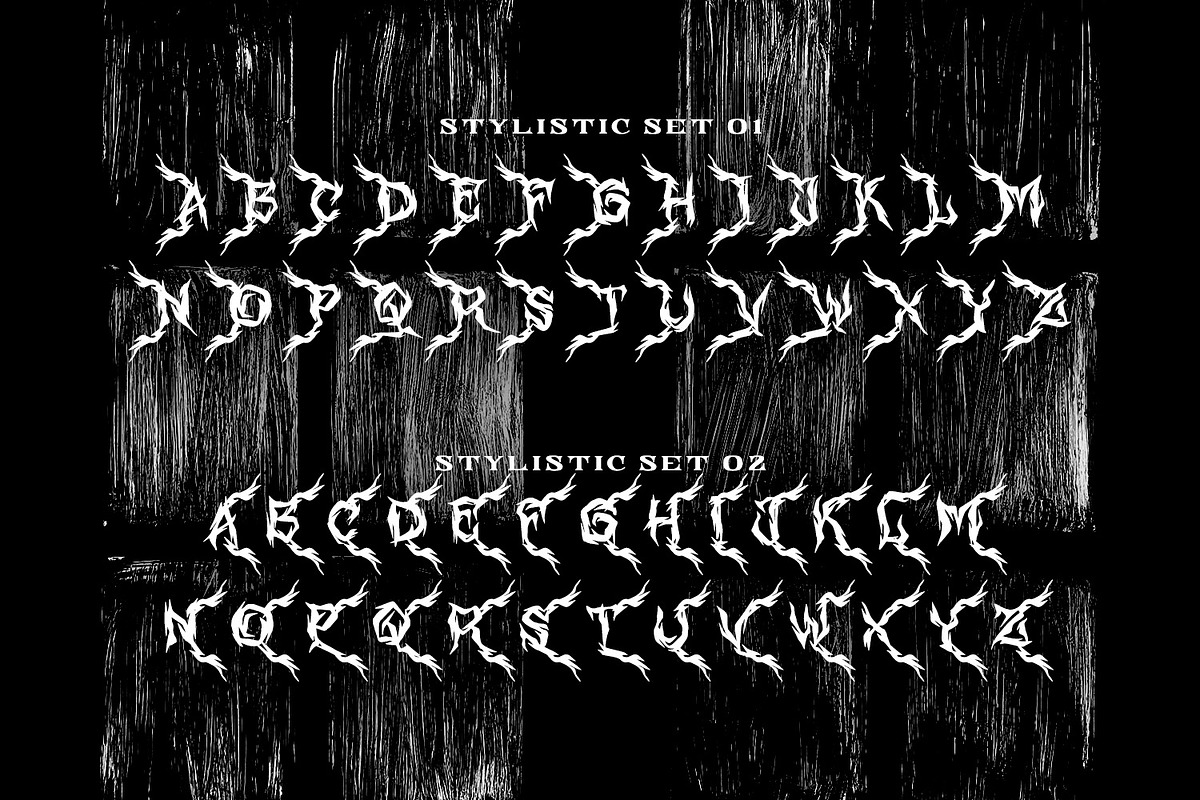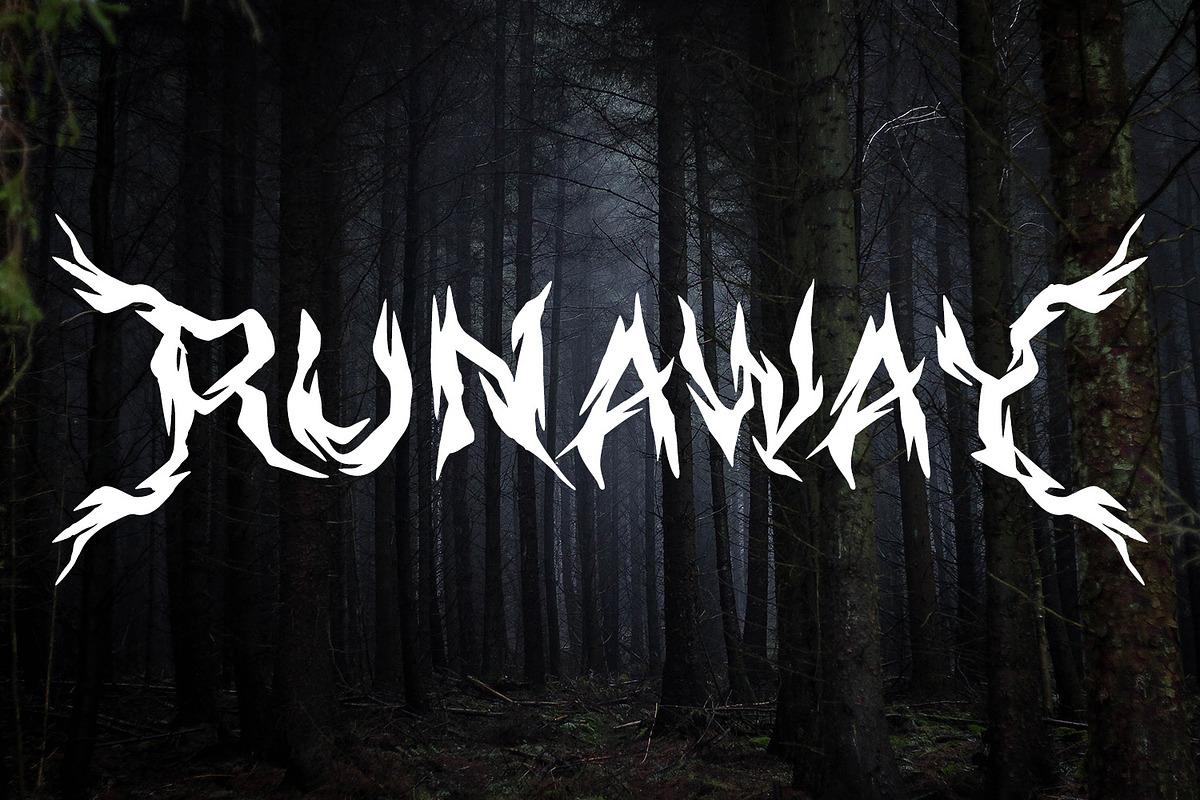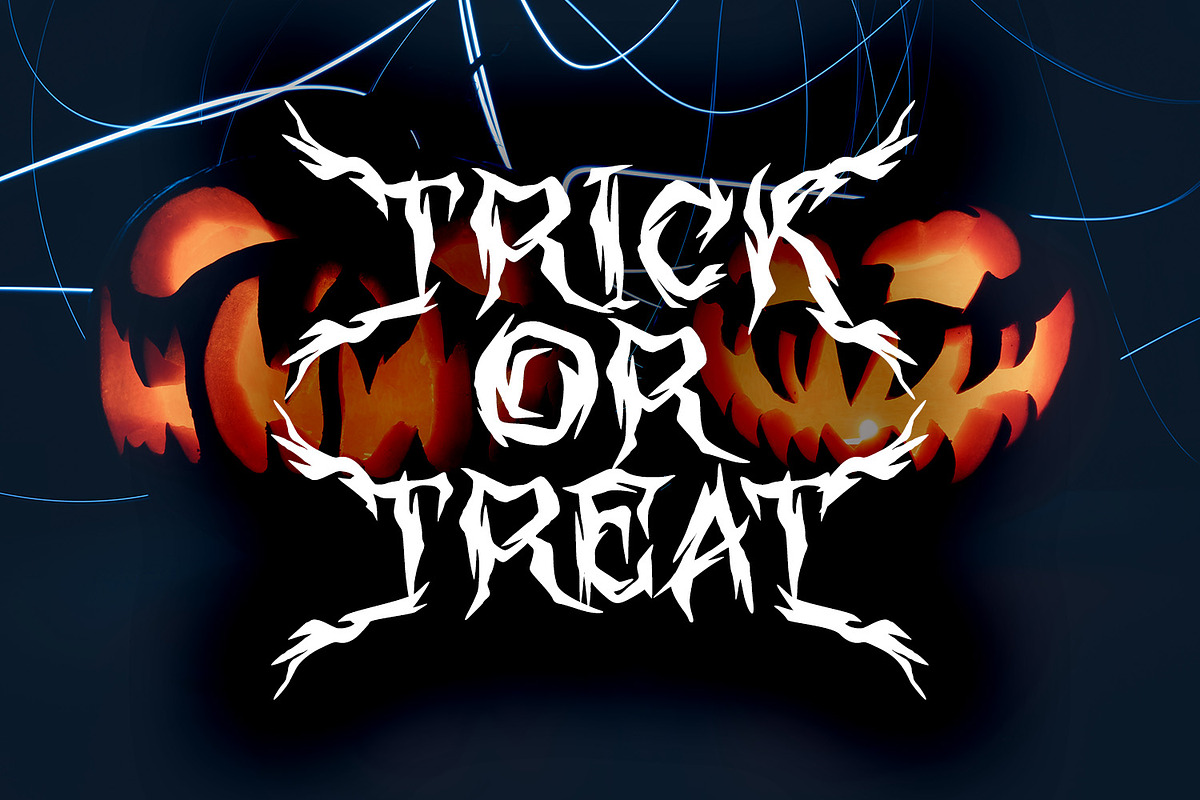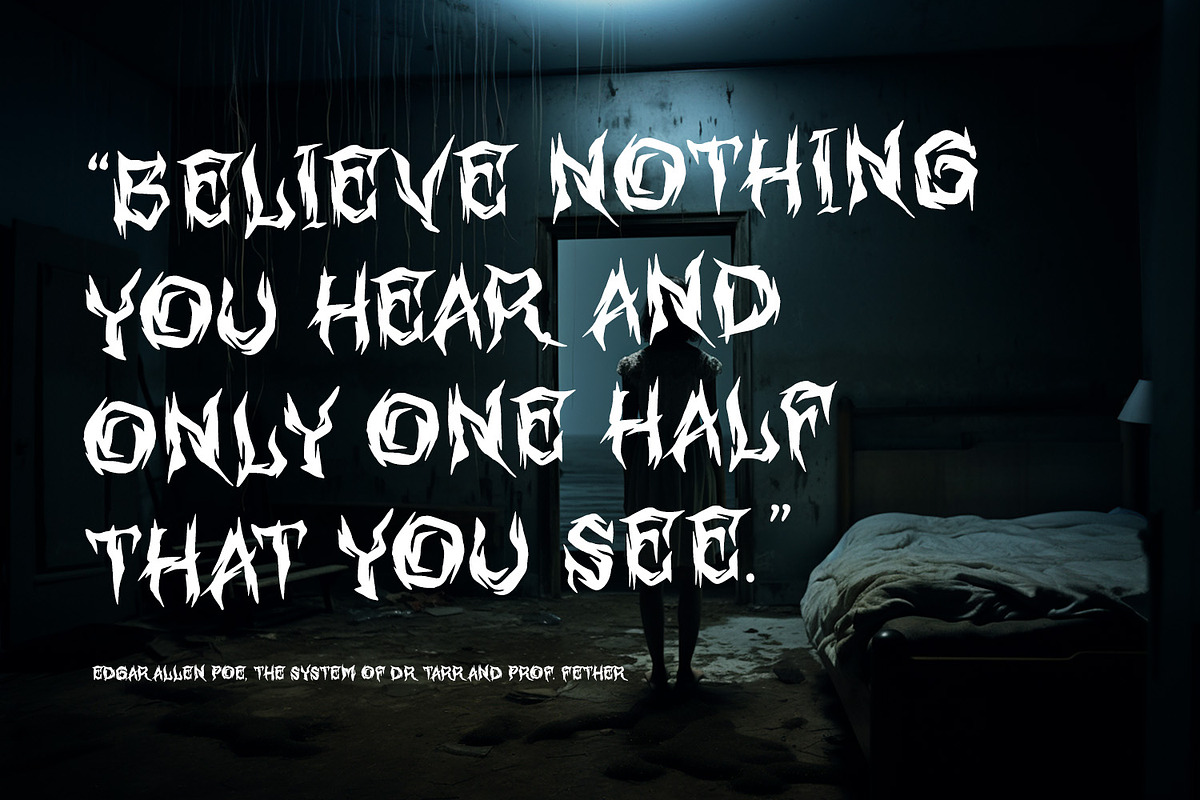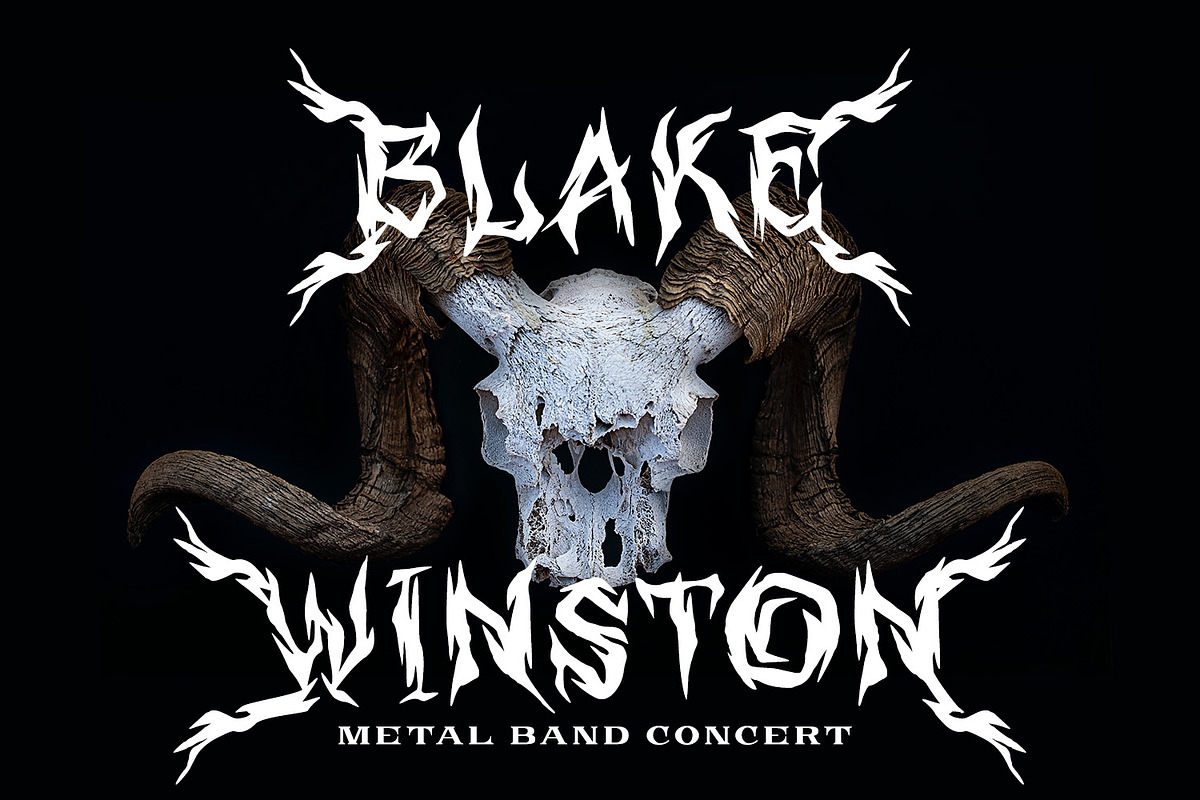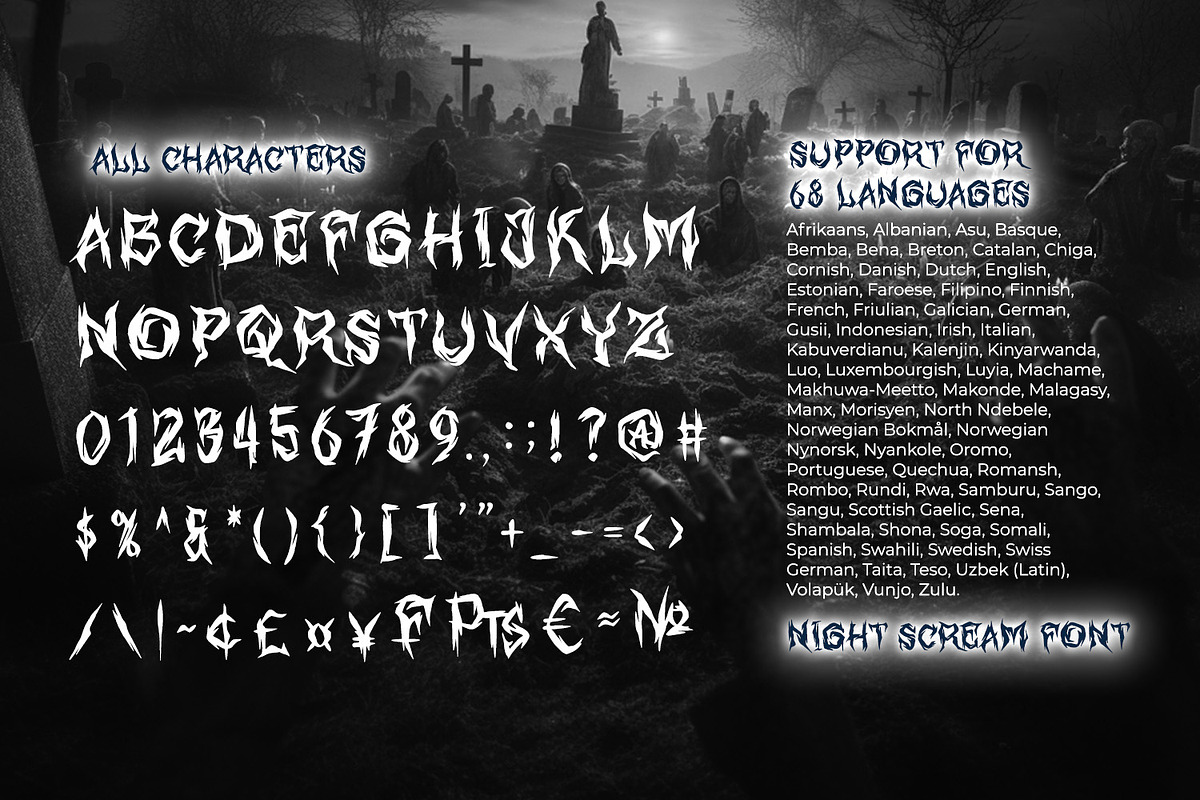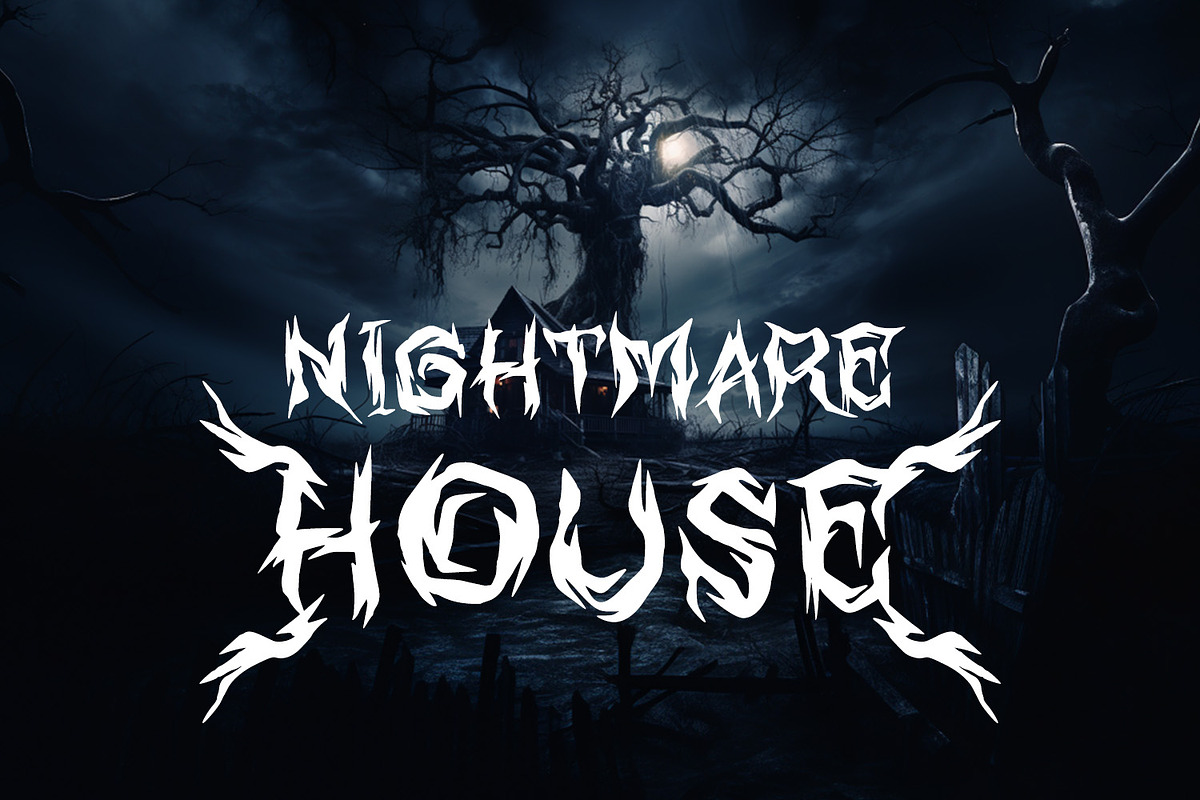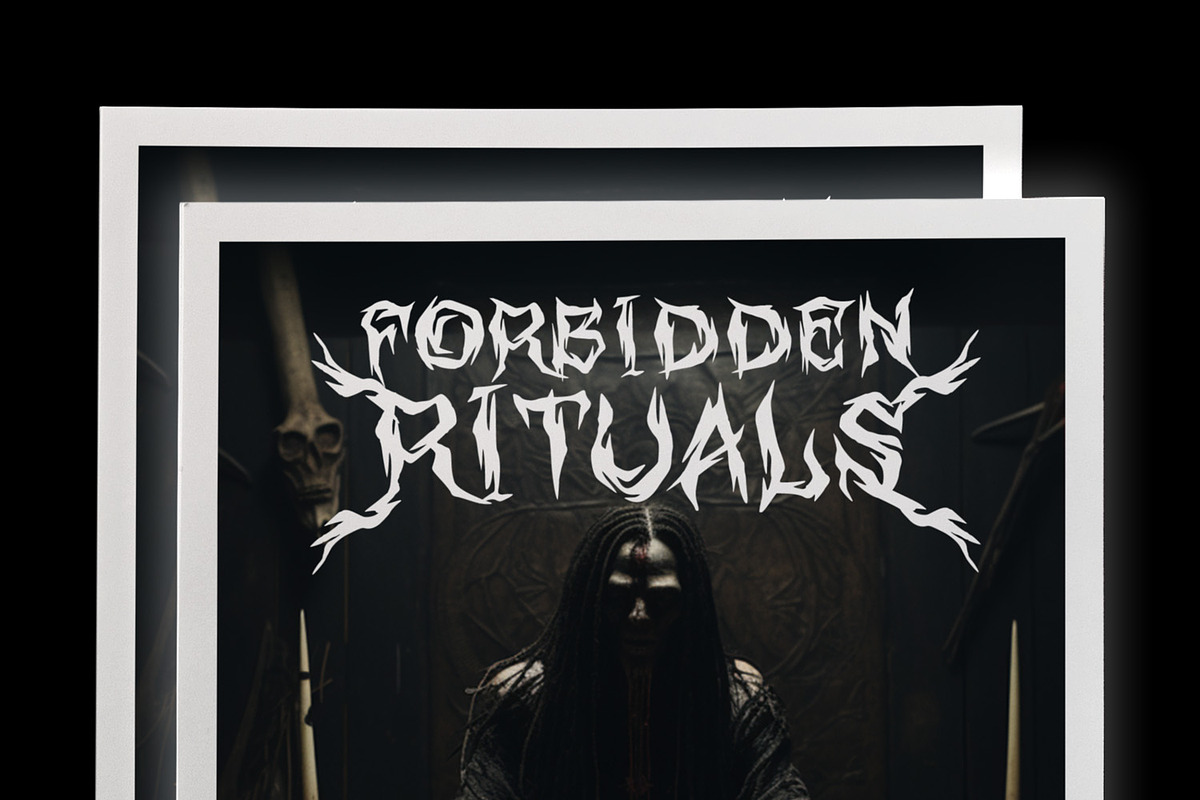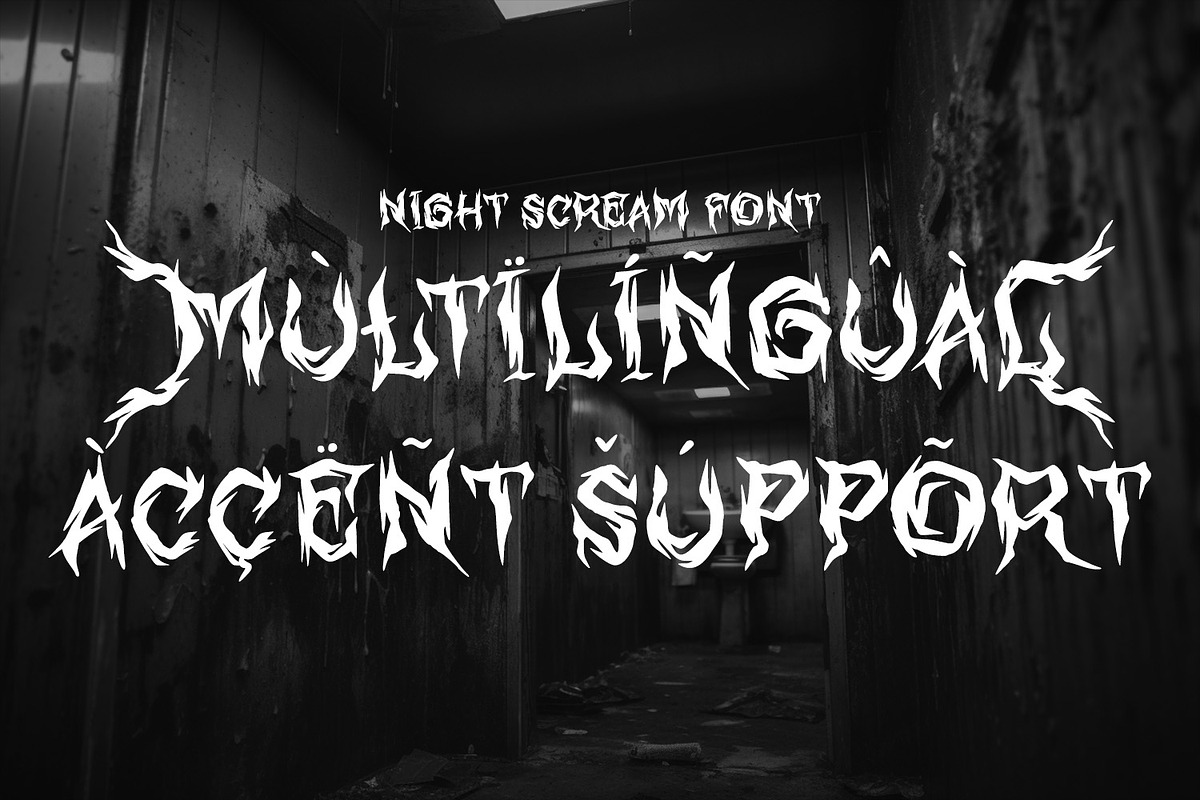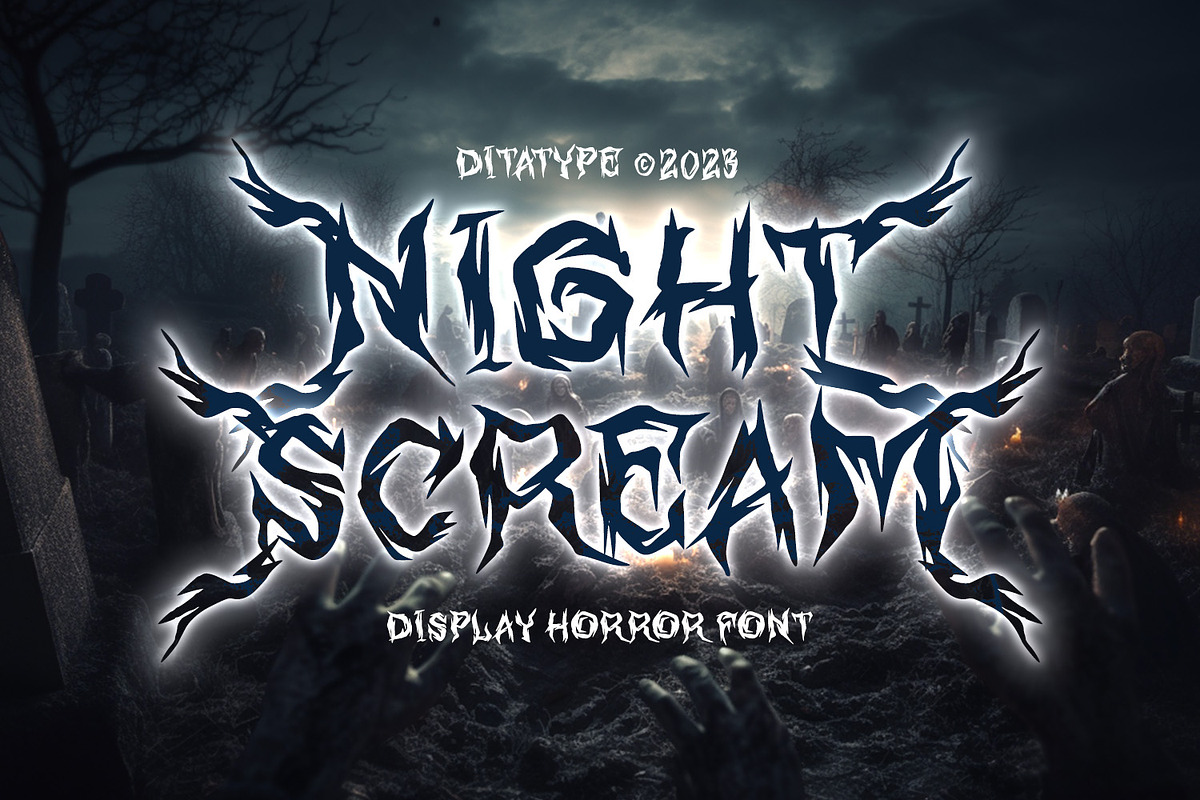
Night Scream
Night Scream is a spine-chilling display font that brings a horrifying twist to your designs. With its big letters and bold weight, this font commands attention and instills fear. The details of the letters are carefully crafted to resemble menacing plant roots, adding a nightmarish and eerie touch to the font. Each letter in this font is bold and impactful, demanding to be noticed. The large size of the letters adds to the font's imposing presence. The root-like details in Night Scream give the font an organic and otherworldly appearance, reminiscent of sinister, twisted plant life. These details add an element of the unknown and create an atmosphere of dread, immersing the viewer into a world of dark and chilling horrors. For the best legibility you can use this font in the bigger text sizes. Enjoy the available features here.
Night Scream fits in headlines, logos, movie posters, flyers, invitations, branding materials, print media, editorial layouts, headers, and any project that requires a terrifying touch. Find out more ways to use this font by taking a look at the font preview.